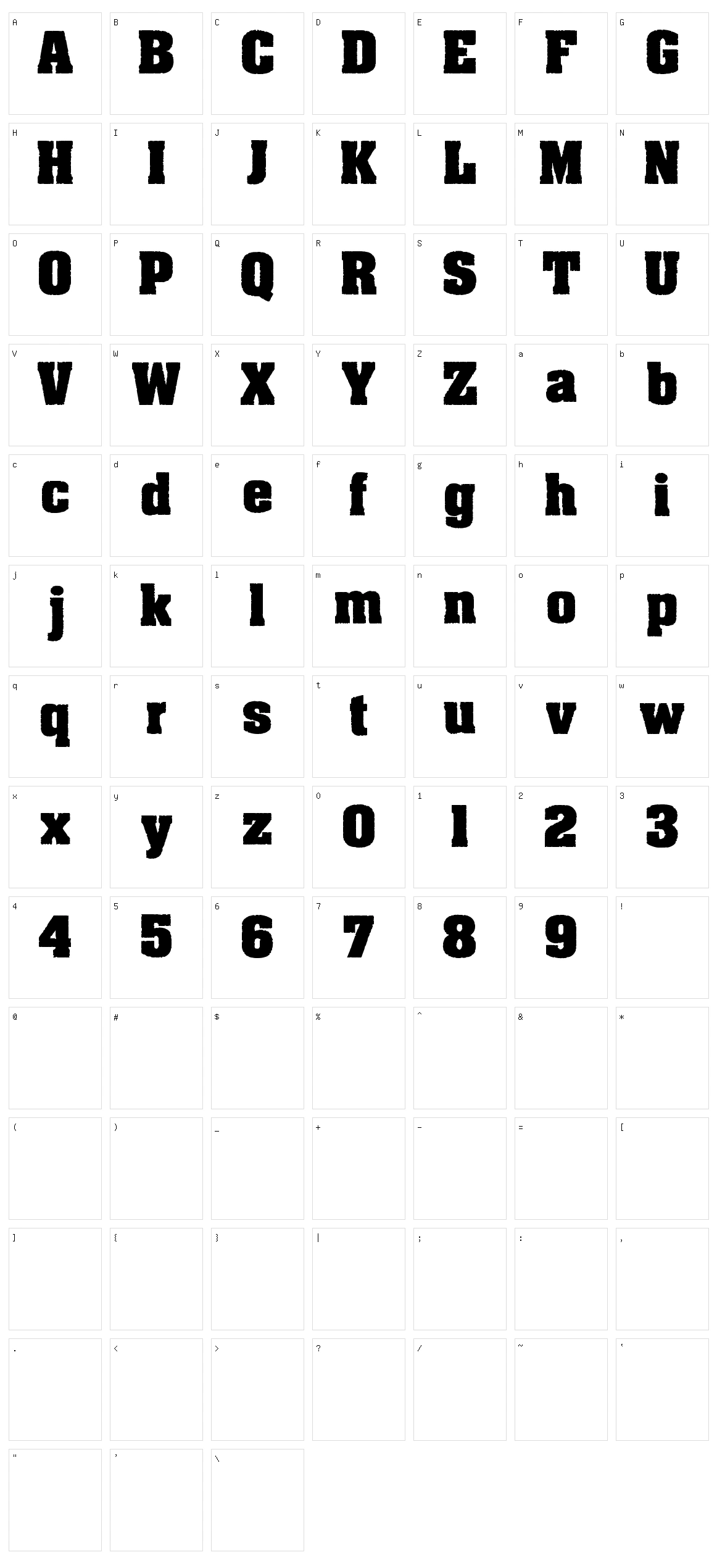
The free font Dirty Old Town is carefully designed by 1001 Free Fonts, showcasing a thoughtful balance of creativity and usability and falls under the Eroded font style. When you download the ZIP file, it contains only 32.97 KB of font files, making it lightweight and quick to download. Please review the license details below to understand permitted usage and distribution rights. If license information is not available, we recommend using this font for personal projects only or contacting the author directly for commercial usage permissions.
Dirty Old Town - 2014